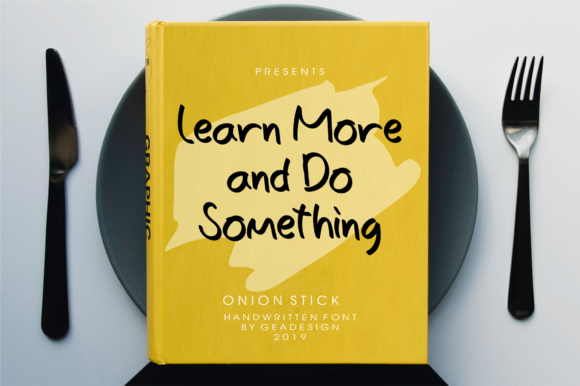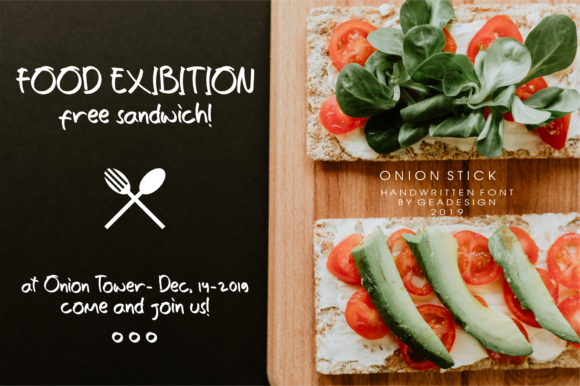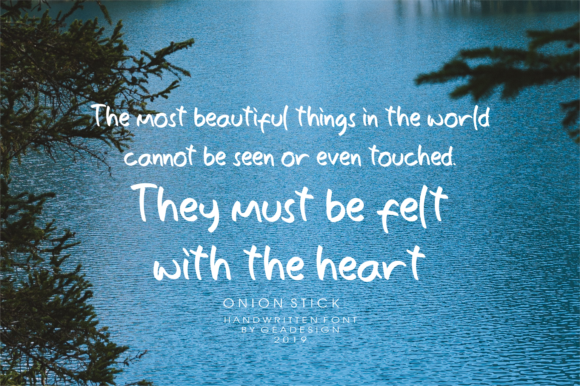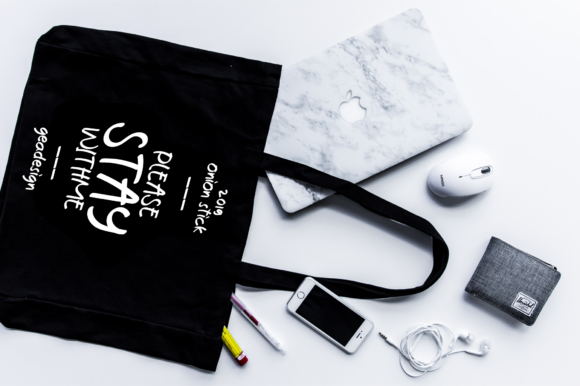
Introduction to Onion Stick Font Font
Fonts play a crucial role in design, and the Onion Stick Font font is a typeface that brings both character and versatility to any project. Whether you’re working on a branding project, a website, or a print design, the Onion Stick Font font offers a unique style that can elevate your work.
Onion Stick is a handwritten font that looks minimal, yet playful.
Itβs perfect for branding, quotes and any design projects that need a simple and fun touch .
Key Features of Onion Stick Font Font
Why Choose Onion Stick Font Font?
The Onion Stick Font font is more than just a typeface β it’s a design tool that helps you communicate your message with style and clarity. Its unique character set and versatile design make it suitable for a wide range of applications, from elegant invitations to bold headlines.
With its carefully crafted letterforms and balanced proportions, the Onion Stick Font font ensures readability and visual appeal across all mediums.
What makes Onion Stick Font font special?
The Onion Stick Font font stands out with its unique design, exceptional readability, and versatility across various design applications.